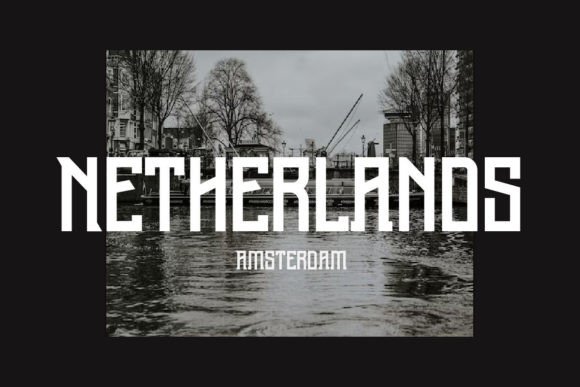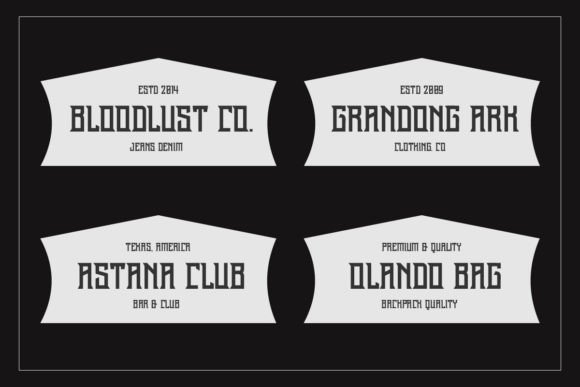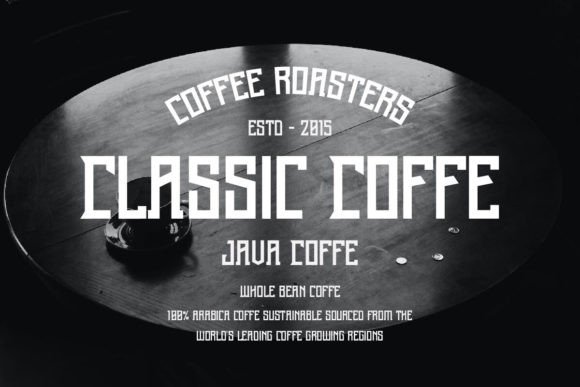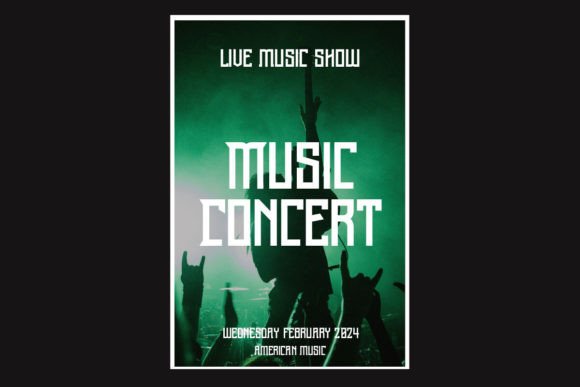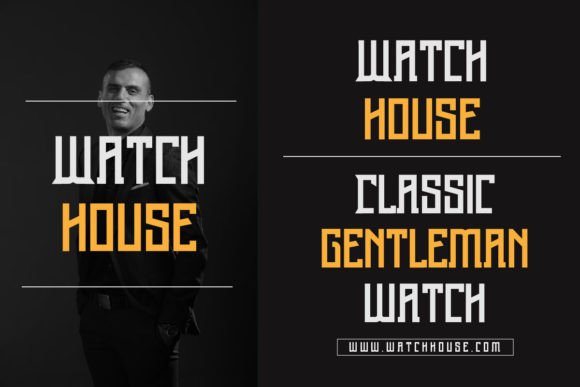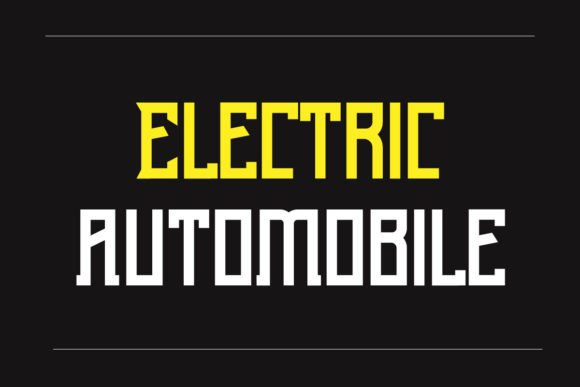
Unleash Creativity with Death Note: The Modern Display Font You Need
I’ll never forget the time I was working on a project for a client who wanted a bold, eye-catching font to capture the essence of their brand. As I scrolled through font after font, nothing seemed quite right – until I stumbled upon Death Note. This modern and sporty display font has been a game-changer for my designs, and I’m excited to share its awesomeness with you! 🎉
An Honest Review of Death Note
- ✨ Unique letterforms that add a touch of personality to any design
- ✅ Versatile features that make it perfect for a wide range of projects
- 💥 Bold aesthetic that’s sure to captivate your audience
- 🎨 Highly legible, even at smaller sizes
While Death Note is an amazing font, there are a few things to keep in mind: 🤔
- ⚠️ Some of the more intricate details may get lost at very small sizes
- ⚠️ Not ideal for body text or long-form content
One of the standout features of Death Note is its OpenType features and glyphs. These allow you to customize the font to suit your design needs. Some of the features you can experiment with include:
- Ligatures: These are special character combinations that can add a touch of elegance to your text
- Stylistic alternates: These allow you to swap out certain characters for alternative designs
- Glyphs: These are special characters that can add visual interest to your text
The Story Behind Death Note
Death Note was designed with the modern creative in mind. Its unique letterforms and bold aesthetic make it perfect for designers who want to add a touch of personality to their work. While the font’s exact origins are shrouded in mystery, it’s clear that the designer was inspired by the world of sports and fashion.
| Font Name | Death Note Font |
| Author | Almairatype Studio |
Q: Is Death Note suitable for body text?
A: While Death Note is a highly legible font, it’s not ideal for body text or long-form content. Instead, use it for headlines, titles, and other display text.